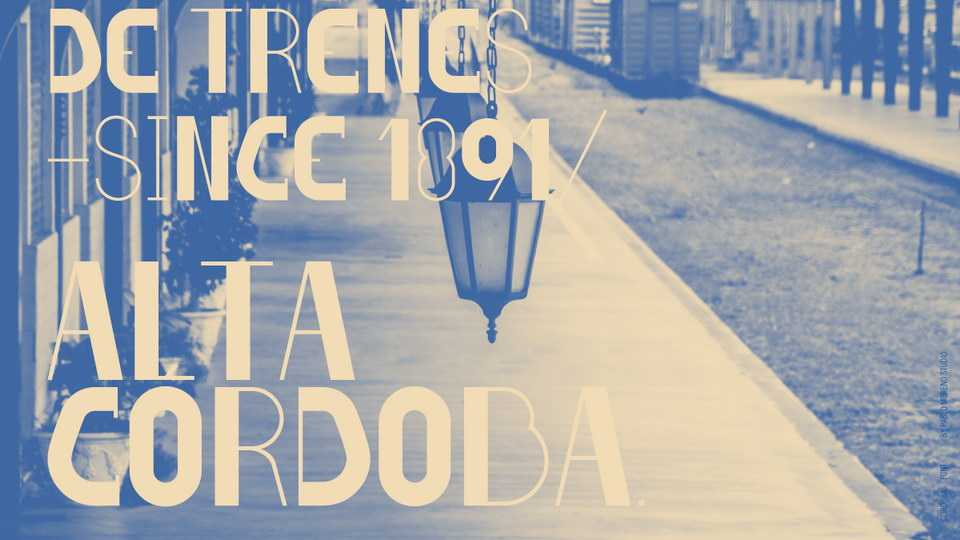
Download Cordoba font, a typeface inspired by the city architectural diversity, the customs, the music and the people that live in the city. Despite there’s merge of different styles and sizes, Cordoba font still remains classic and modern at the same time.
Designer: Pablo Moreno